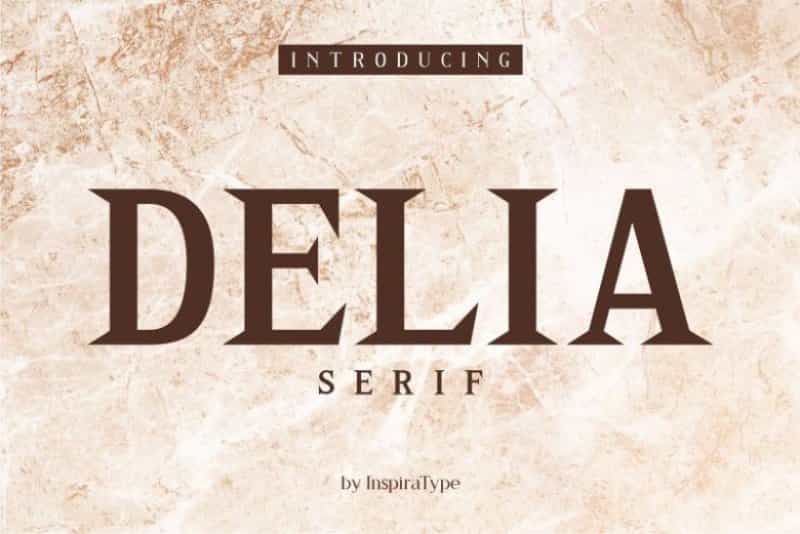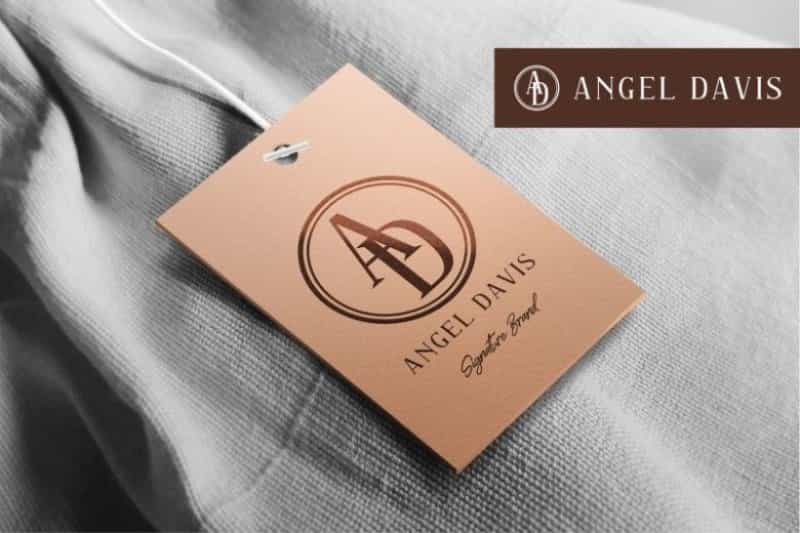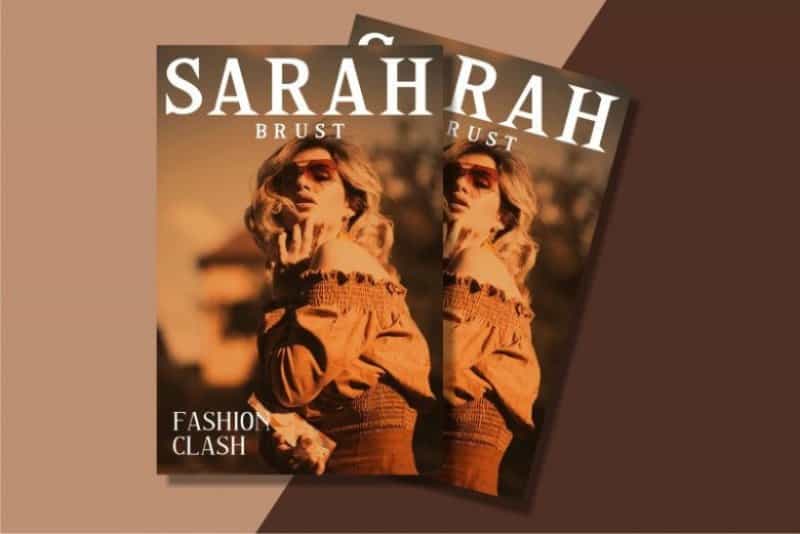
“Delia Font” is a display font which is derived from the classic posters, and is made by hand. It has the uppercase, the lowercase, the numerals, the punctuations and so many variations on each character including OpenType alternates, common ligatures and also additional swash that will allow you to design your own fonts.